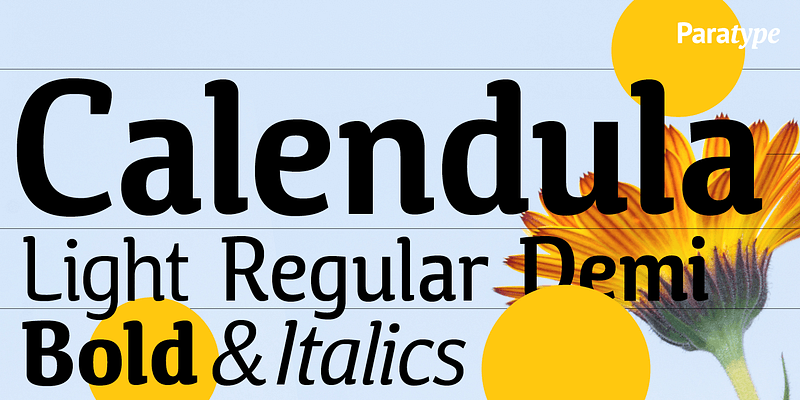
Calendula Font excels in various design applications including herbal product branding, natural skincare packaging, botanical garden signage, wellness center logos, organic cosmetics labels, flower shop materials, healing therapy advertisements, and nature-inspired editorial designs. This botanical typeface adapts beautifully to both natural digital platforms and organic print materials, making it perfect for designers seeking floral elegance and healing sophistication in their visual communications.
Calendula Font generates excitement among creative professionals due to its botanical character and flower-inspired styling that instantly conveys natural healing and floral beauty. The font's organic letterforms and petal-like proportions create an immediate sense of natural wellness and botanical charm. Its healing personality makes it particularly appealing for brands wanting to communicate natural remedies, floral beauty, and organic wellness in their visual identity.
The Calendula Font family includes multiple weights and styles such as Regular, Bold, Light, Petal, and Organic variations. Each family member maintains botanical design principles while offering distinct floral characteristics. The Light weight provides gentle floral elegance for delicate applications, while the Petal version delivers natural impact for healing headlines and botanical brand statements.
Natural designers frequently choose Calendula Font Free Download for projects requiring both botanical authenticity and healing distinction. This typeface demonstrates exceptional effectiveness across wellness industries including herbal companies, natural skincare brands, botanical gardens, and healing centers. Its floral character allows organizations to communicate natural wellness while maintaining excellent readability and botanical visual appeal that connects with audiences seeking natural healing and organic beauty solutions.